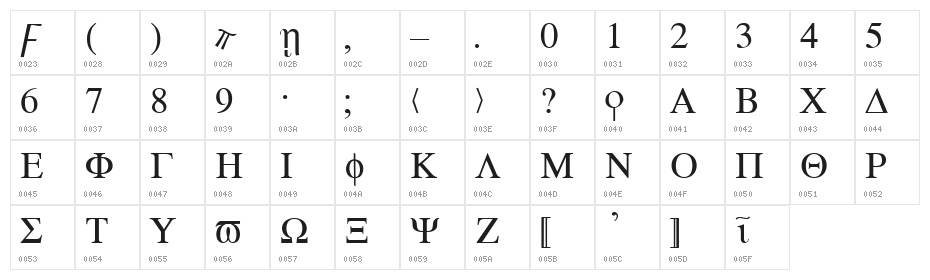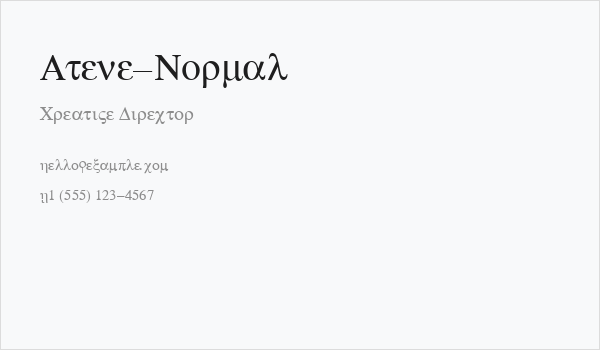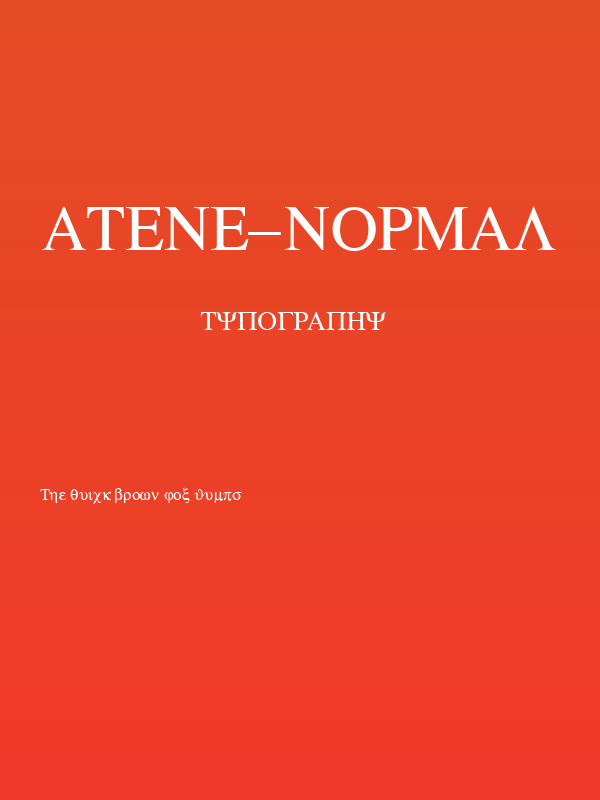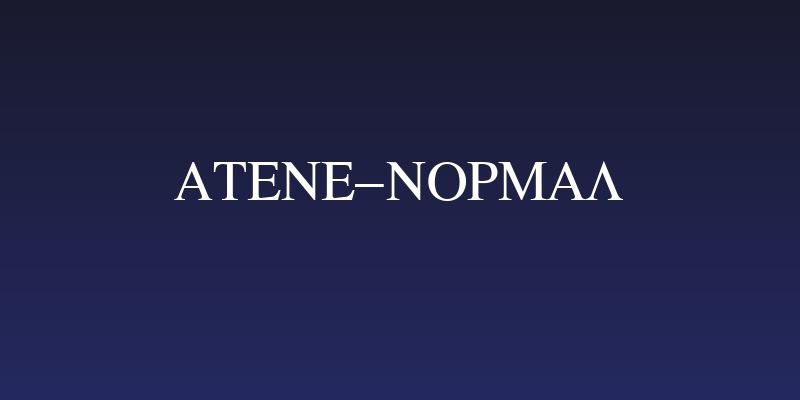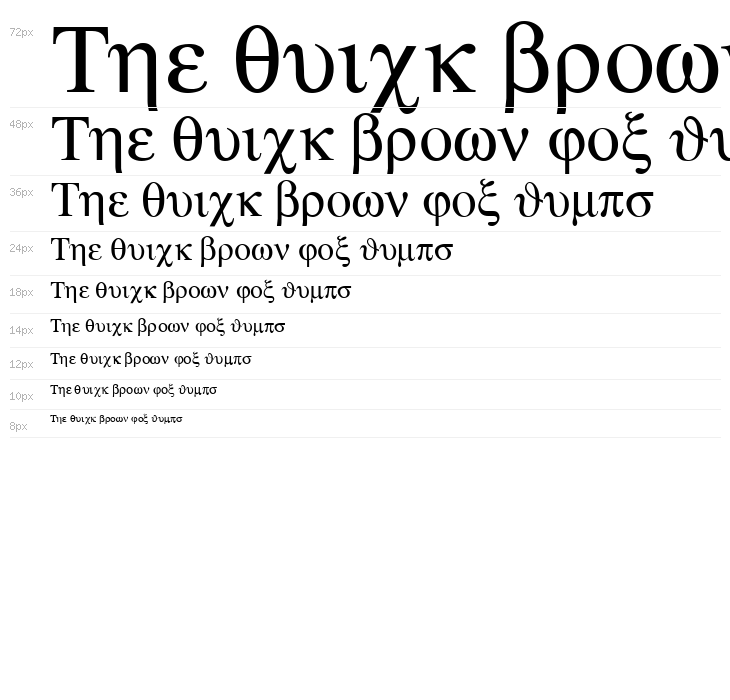
Atene-Normal Font
Atene-Normal Description
This font features a classic serif design with a strong emphasis on traditional Greek letterforms. The uppercase letters are bold and authoritative, while the lowercase letters maintain a consistent style with slightly more curvature, adding a touch of elegance. The numerals are clear and well-proportioned, ensuring readability. Special characters are distinct and maintain the overall aesthetic of the font. The strokes are moderately thick, providing a medium contrast that enhances legibility without sacrificing style. This font is well-suited for projects that require a touch of classical sophistication.
| Proposed Projects | Ideal for academic publications, historical documents, and branding that requires a classical touch. |